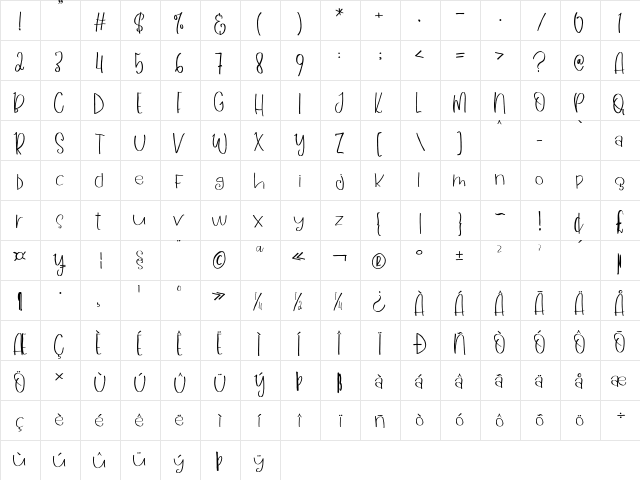
Unique Swirly Regular
Design Context for Unique Swirly Typeface
Unique Swirly is built around its visual character rather than neutral utility — its distinctive forms are designed to make an impression at display sizes.
Font Pairing: Pair with a clean neutral sans-serif for body copy to let Unique Swirly's character lead without overwhelming the composition.
Pro Tip: Use Unique Swirly exclusively at display sizes — it was designed to be seen, not read at length. Let a neutral companion handle body copy.